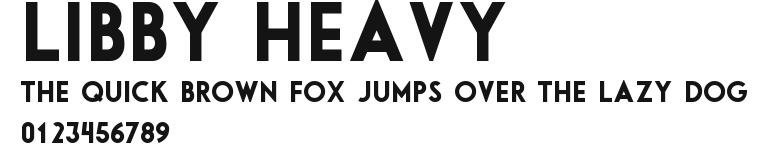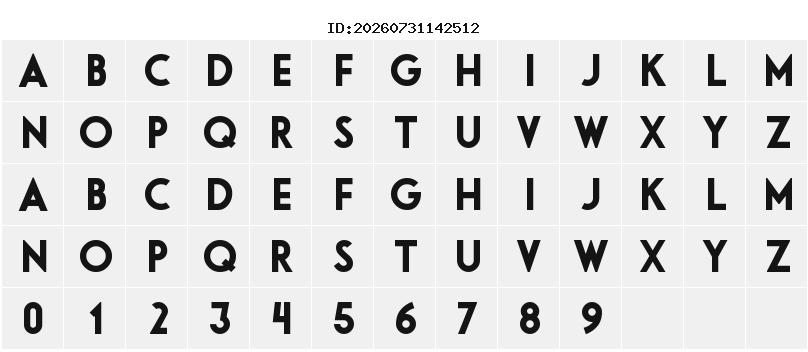
• Font Name: Libby Heavy
• Font Style: Heavy
About Libby Heavy.ttf
Libby Heavy.ttf is a modern, elegant sans-serif font designed for ultimate readability and visual harmony. Perfect for branding, headlines, web design, and print materials.